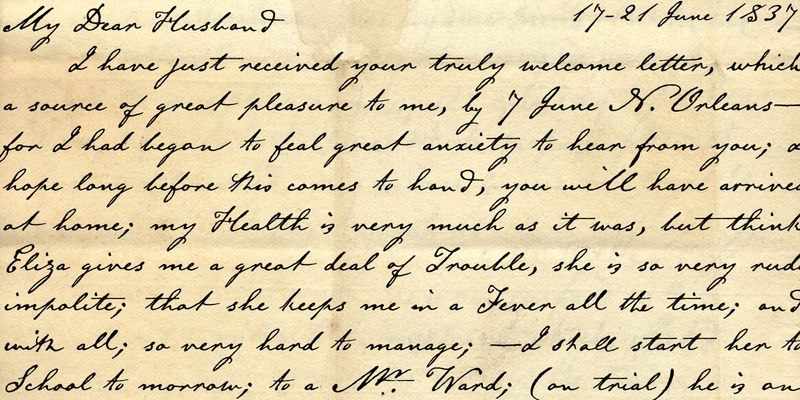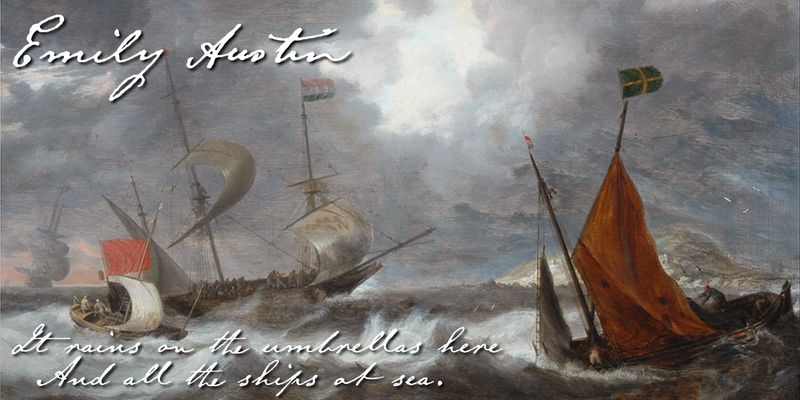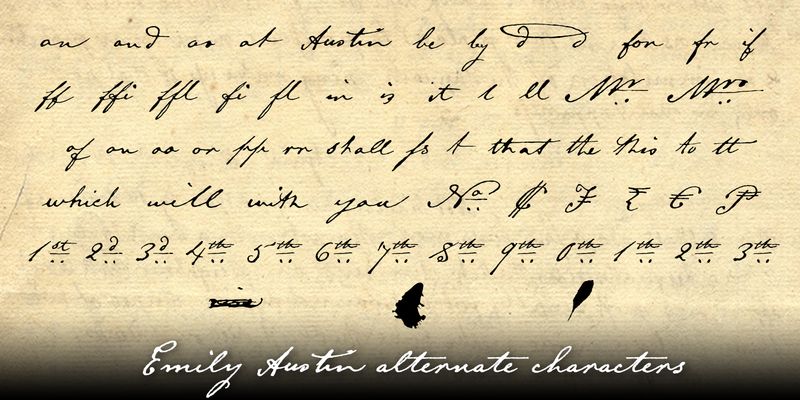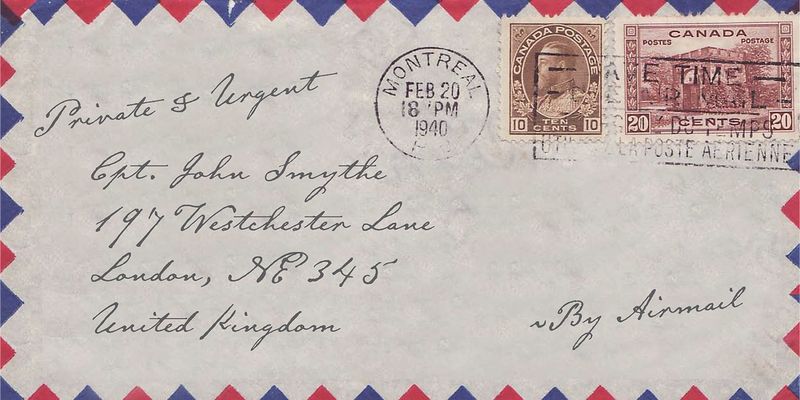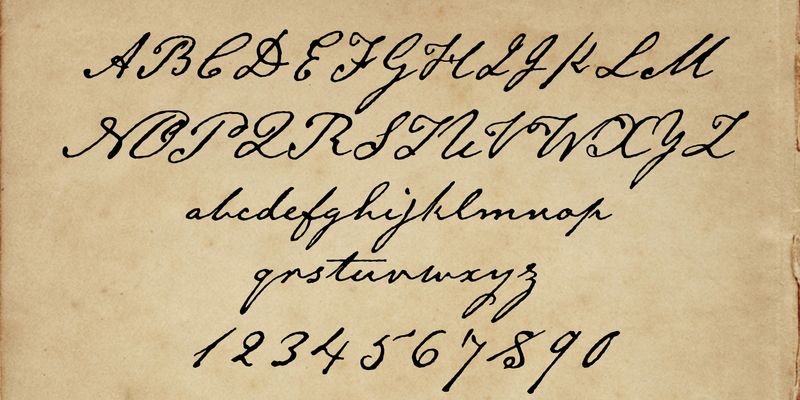
Emily Austin™ replicates the hand of Texas pioneer woman Emily Austin Perry in letters she wrote her husband in the early days of the Republic. Has plenty of OpenType features and full Latin support.